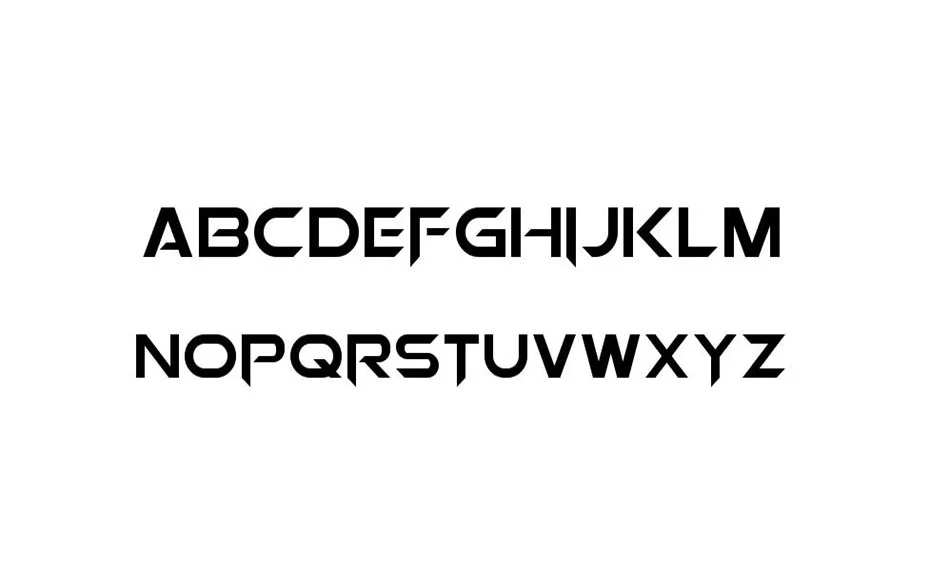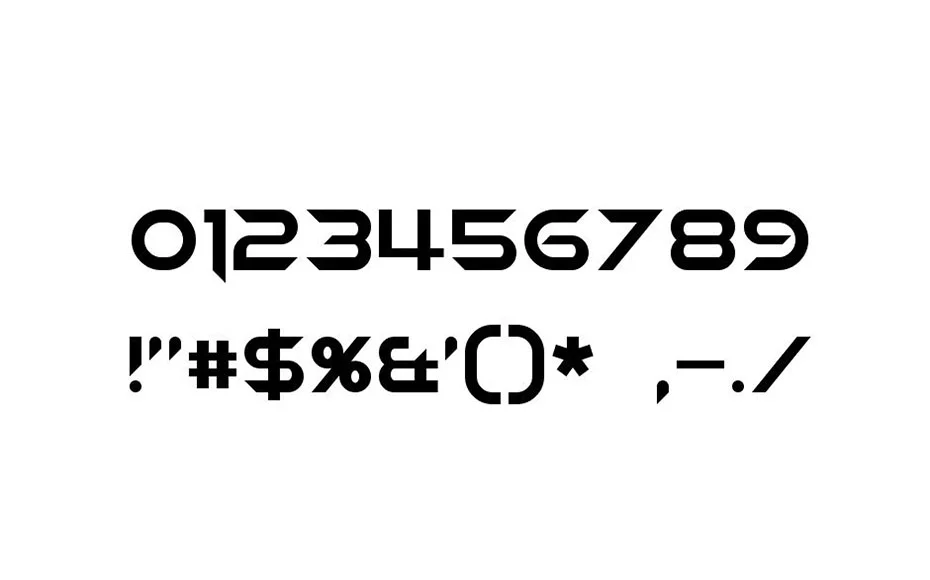
Orion Pax Font is a techno-sci-fi typeface that effortlessly combines modern aesthetics with a futuristic flair. It is suitable for posters, headers, banners, titles, logo designs, branding, and more.
An American designer named Neale and Shayna Davidson were responsible for designing it and it was published by Pixel Sagas in 2012.
Orion Pax typeface offers four different styles including regular, bold, italic, and bold italic. Moreover, this font includes 236 glyphs, 5 ligatures, and 99 binary stored kerning pairs.
Its clean lines and geometric shapes make it easy to read while still conveying a sense of high-tech sophistication. Also, the designer has increased its width just to provide fine texture.
Due to its solid texture, you can definitely use it for display designs and fancy designs as well. On the other hand, you can also use it with other typefaces. Like with Varela Font & Heebo Font.
Create sleek and memorable logos for technology companies, startups, or any business that wants to project a trendy image. The font’s bold, geometric characters make it perfect for making a strong brand statement. Create labels or packaging for electronic devices, software, posters, headers, titles, or other technology-related products.
This font supports 64 languages.